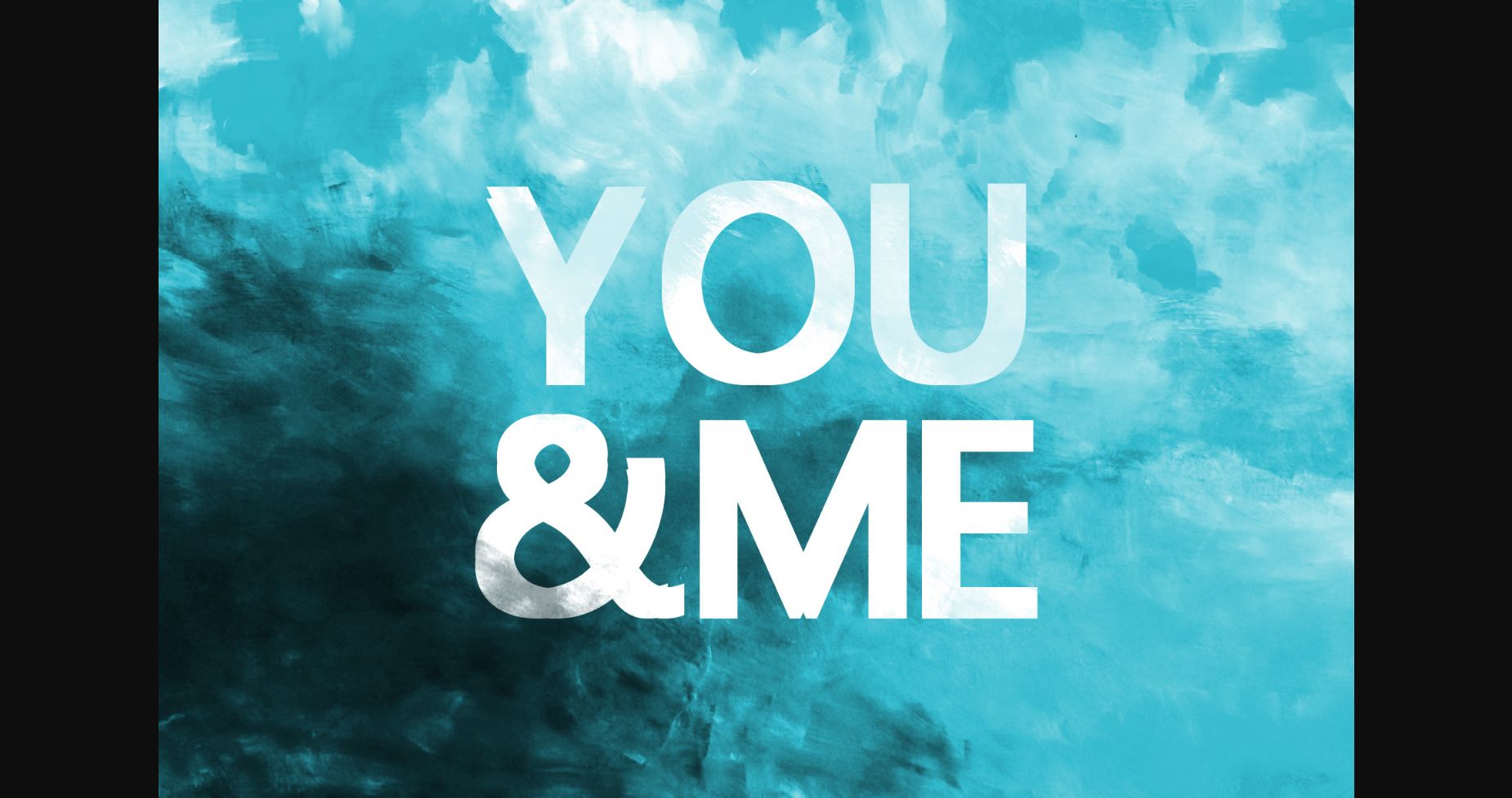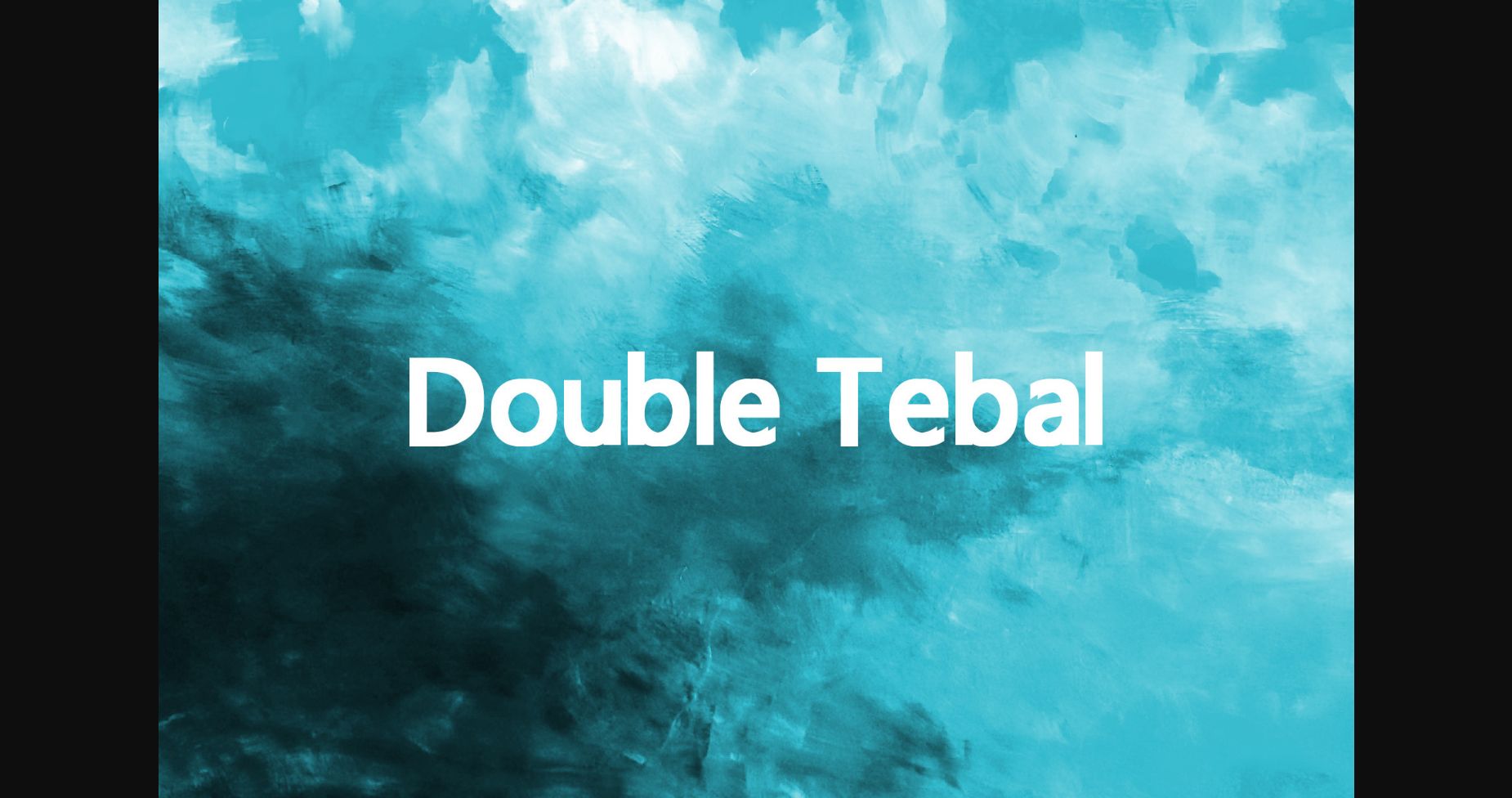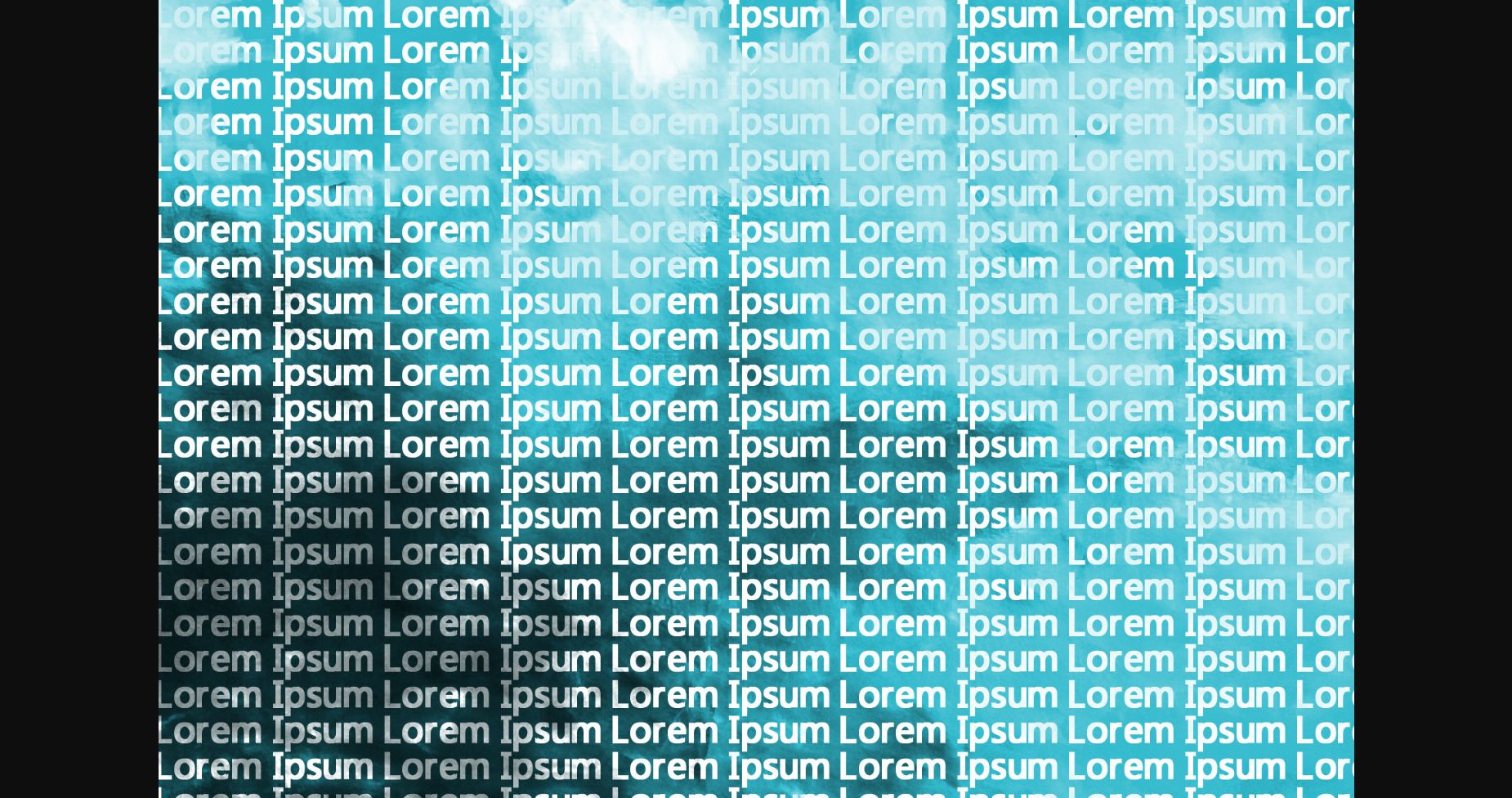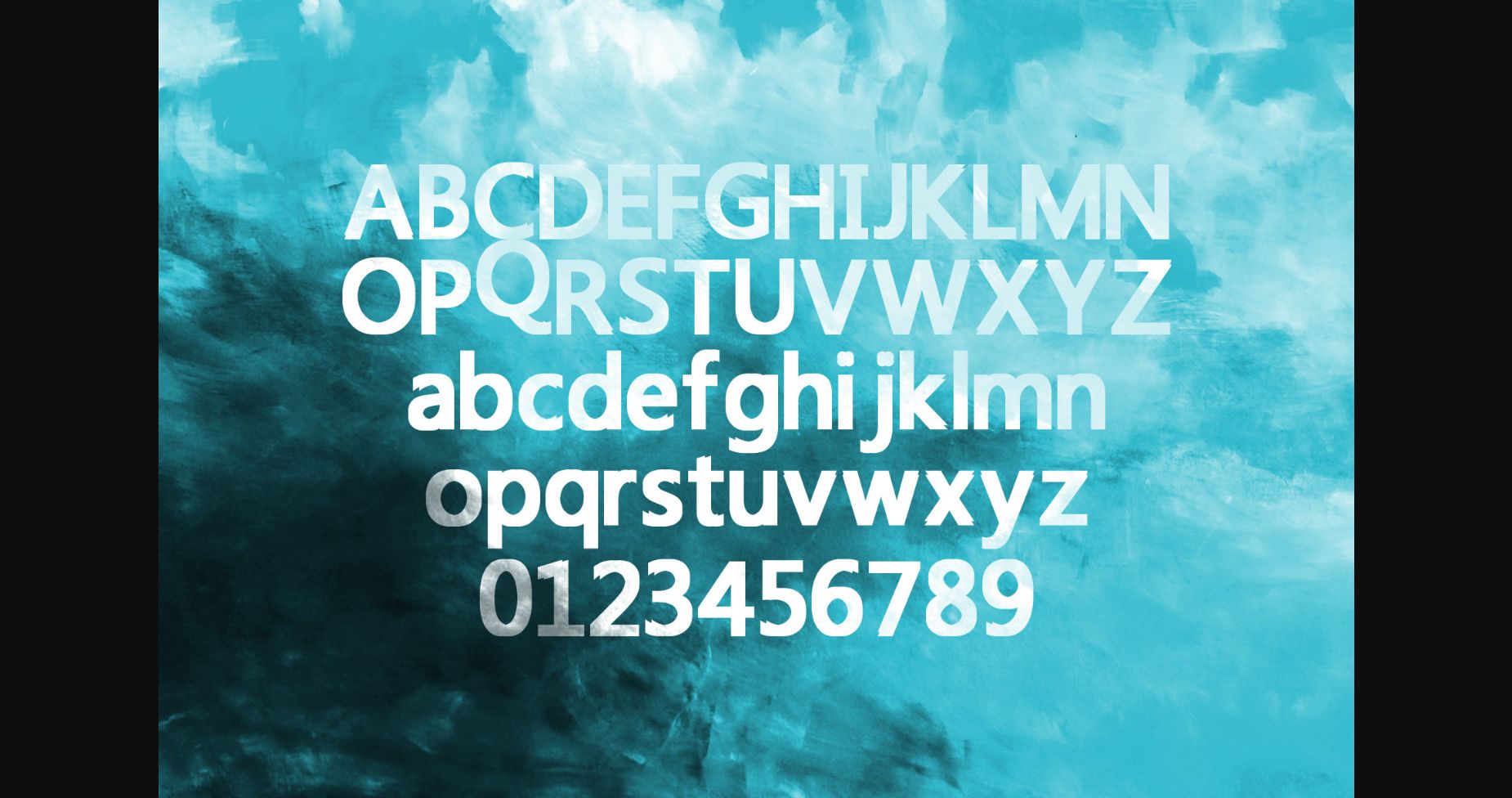
Double Tebal Font
About Double Tebal Font
Double Tebal is a fun and quirky handwritten sans serif font. Add it to your crafty ideas and enjoy the results!